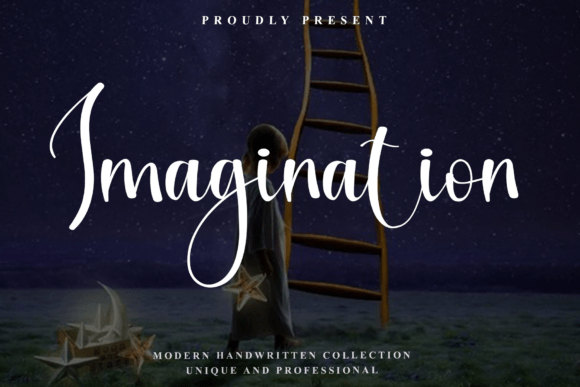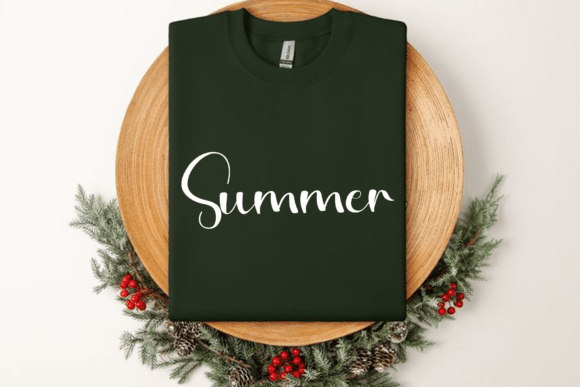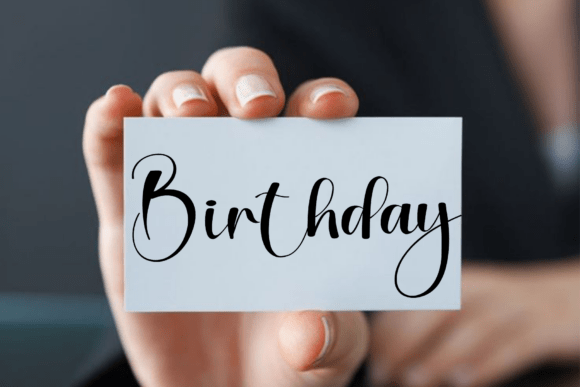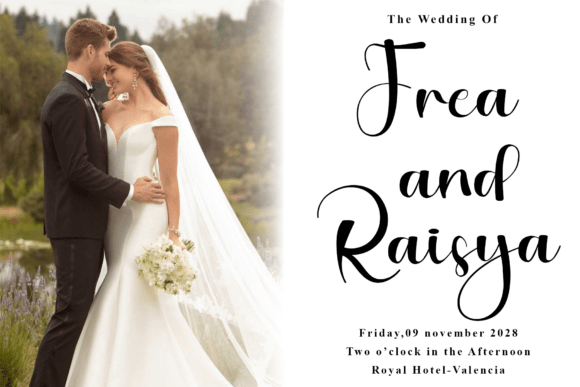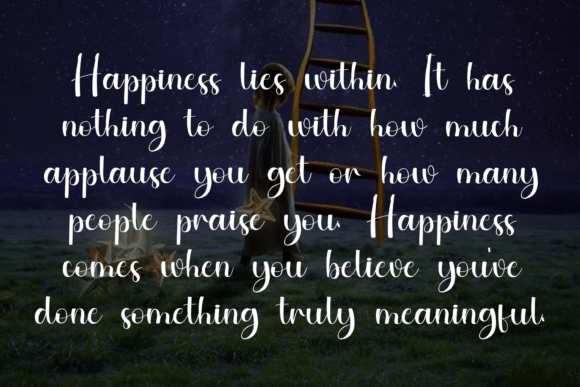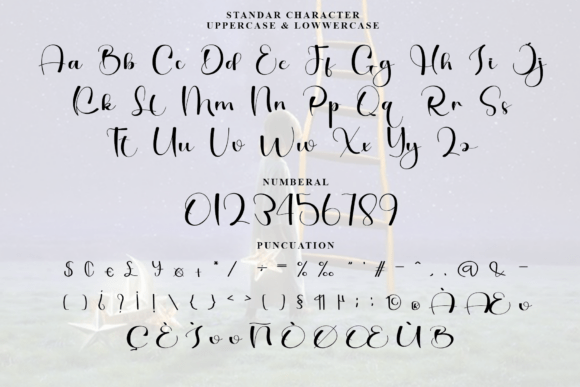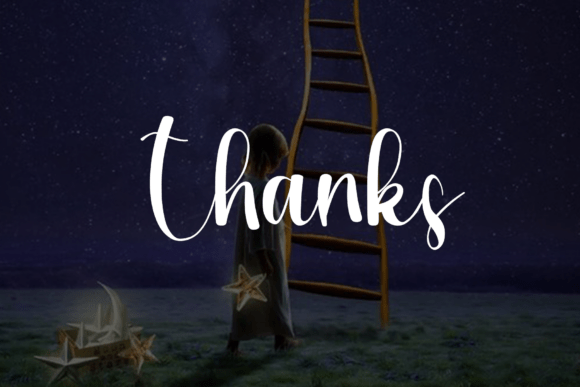
The Spark of Creativity: Unlocking the Power of Imagination Font
Have you ever been struck by a burst of inspiration, where ideas flow freely and creativity knows no bounds? That’s exactly the moment when Imagination Font comes alive – a stylish handwritten font that embodies the essence of organic charm and typographic presence. Its unique blend of thick, solid strokes and a “bouncy” rhythm gives it a friendly and approachable character that’s sure to captivate your audience.
As a designer, you’re constantly on the lookout for the perfect font to elevate your designs and convey your message. Imagination Font is more than just a typeface – it’s a versatile tool that can add a “smart” and adventurous handmade look to your outdoor lifestyle branding, organic product packaging, travel-themed graphics, and rustic event invitations.
Key Features of Imagination Font
- Font Family: Imagination Font comes in a variety of font styles, including script, cursive, and handwritten styles.
- Unique Characteristics: The font features a playful, whimsical design with intricate details and flourishes, making it ideal for creative projects and children’s materials.
- Character Count: The font includes a wide range of characters, including uppercase and lowercase letters, numbers, and punctuation marks.
Imagination Font Review
Overall, I’d say the Imagination Font is a unique and interesting choice for designers looking to add some whimsy to their projects. ✨ The font’s irregular shapes and varied line widths give it a playful, hand-drawn feel that can be perfect for children’s books, advertising campaigns, or even digital interfaces.
Here are some of the things I think work well about the Imagination Font:
- ✨ The font’s versatility: It can be used in a variety of contexts, from formal to informal.
- ✨ The high level of customizability: The font’s unique shapes and line widths make it easy to customize and adapt to different projects.
- ✨ The font’s readability: Despite its irregular shapes, the Imagination Font is surprisingly easy to read, especially at larger font sizes.
- ⚠️ Limited legibility at small font sizes: The font’s irregular shapes can make it difficult to read at very small font sizes.
- ⚠️ Limited compatibility: The Imagination Font may not work well in all software or systems, which could limit its use in certain projects.
Overall, I think the Imagination Font is a great choice for designers who want to add some personality to their projects. While it may not be the best choice for every project, it’s definitely worth considering for the right type of design.
The Imagination Font is perfect for:
1. Children’s book illustrations and design.
2. Fantasy and science fiction artwork.
3. Creative advertising and marketing campaigns.
4. Educational materials and interactive learning tools.